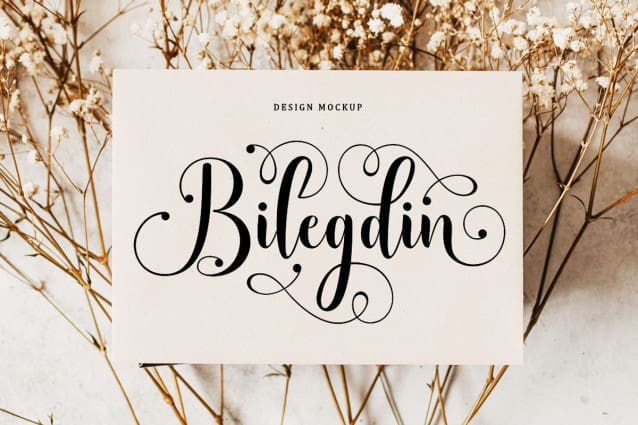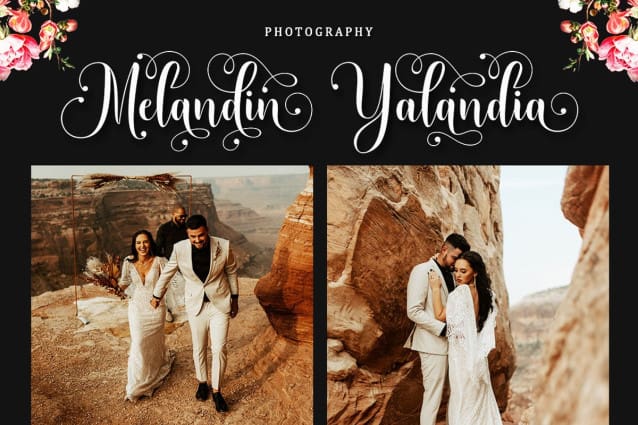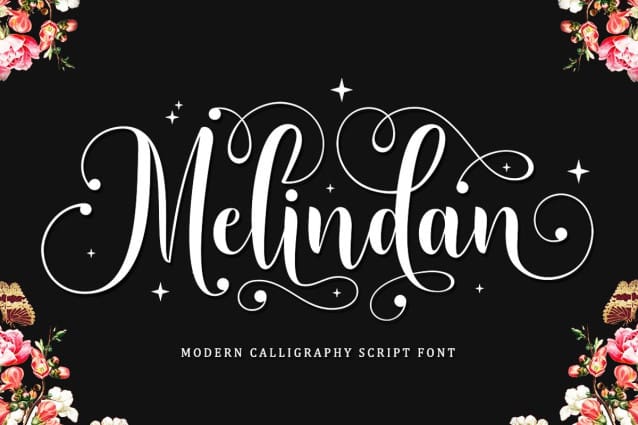
Melindan Font
Melindan Font is a modern script font that features a classic and elegant touch. Melindan Font is attractive because it is sleek, clean, feminine, sensual, glamorous, simple and very easy to read, thanks to its many beautiful letter connections. I also offer a number of decent stylistic alternatives for some of the letters. Classic style is very suitable to be applied in various formal forms such as invitations, labels, restaurant menus, logos, fashion, make up, stationery, novels, magazines, books, greeting/wedding cards, packaging, labels or all kinds of advertising purposes. .